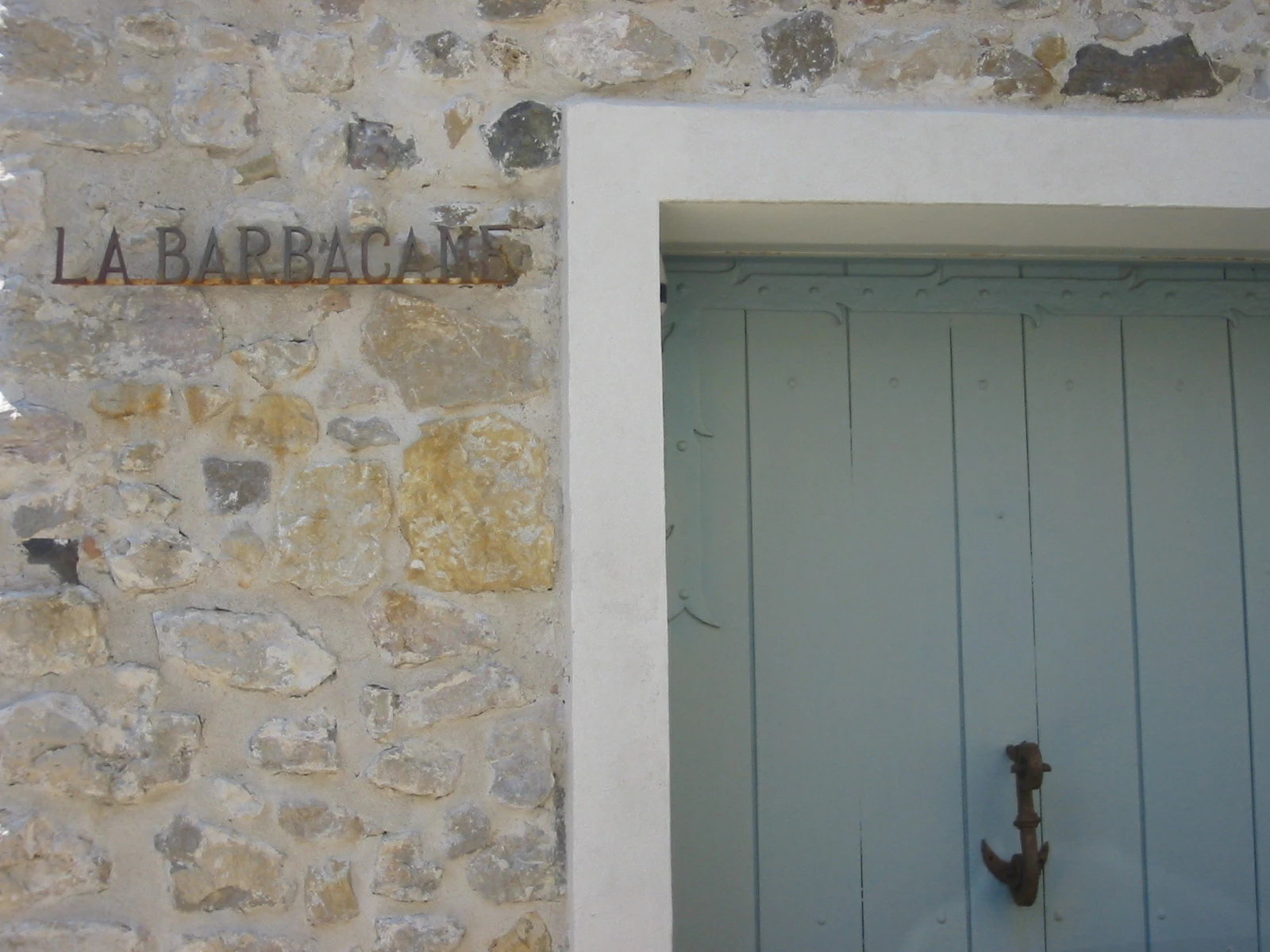
I found this beautiful name sign on a house in the south of France but have been unable to find the exact same font.
I really love the left-sided A's and the condensed old style letters.
Thanks for your reply. I have tried this, but unfortunately it does not seem to work. Perhaps because the text example I have is from a real life situation (name sign on a house), and not text from a magazine or similar, and therefore harder for the AI to abstract from the background colours?
Was hoping that there were somebody out there, perhaps a graphical designer, who had come across the font type before and could recognise it from the photo..